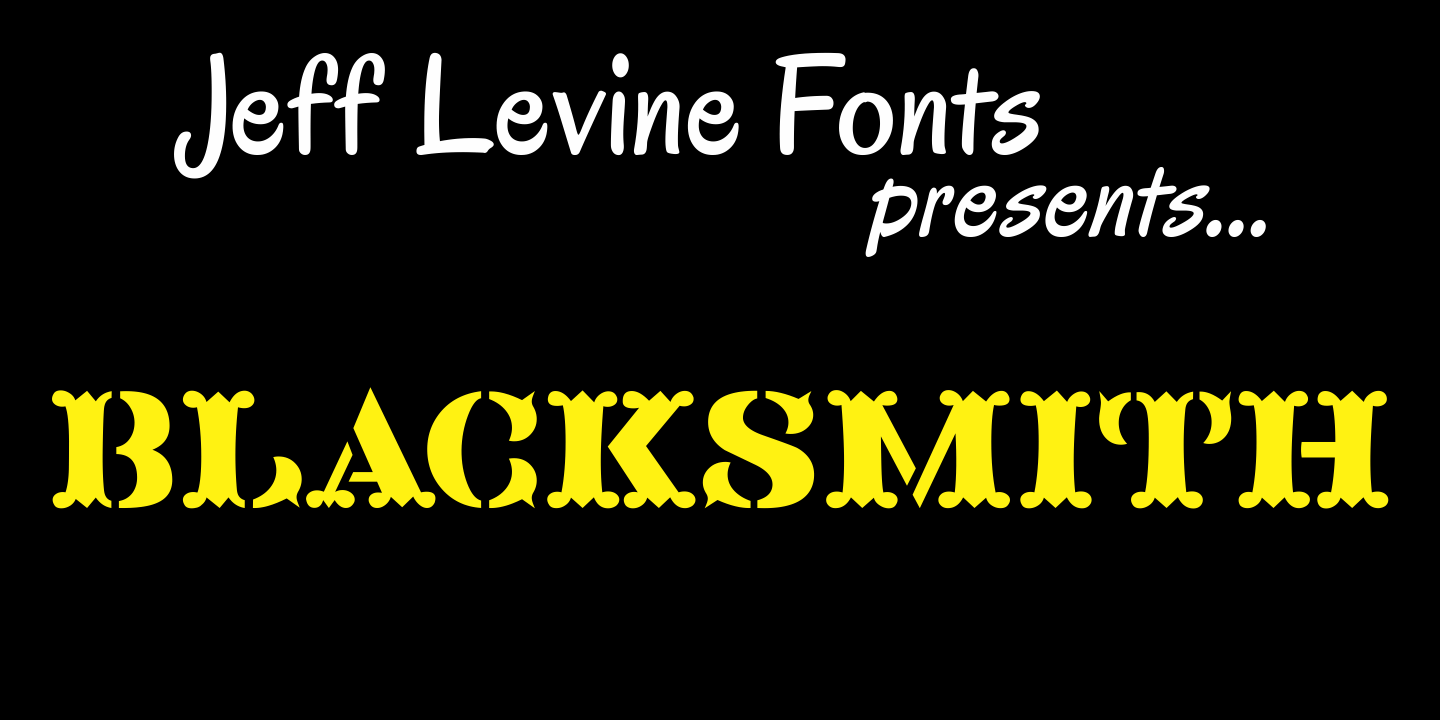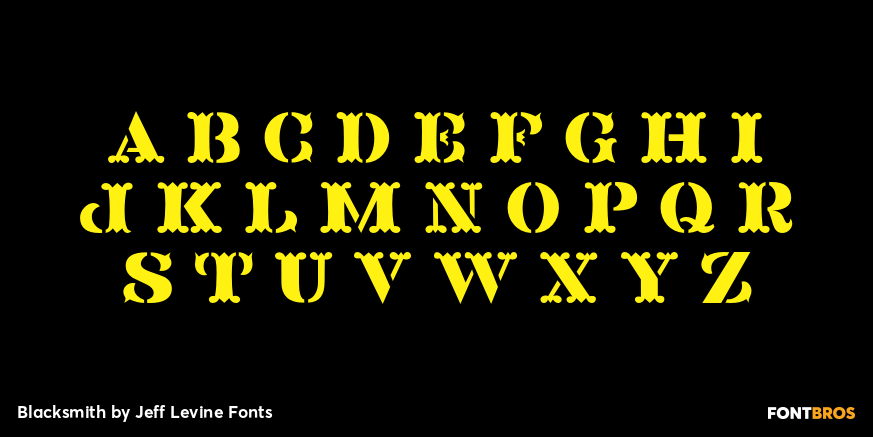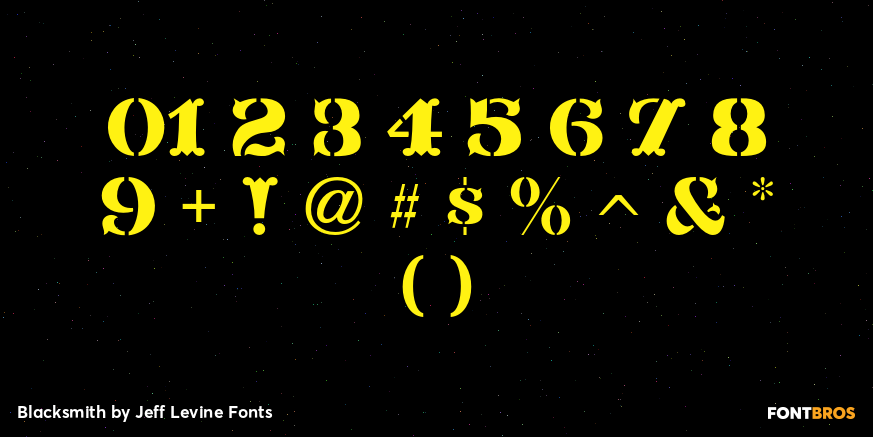
Blacksmith
What started as an image of a single vintage brass stencil of the letter 'P' spotted in an online auction has turned into Blacksmith JNL. From that single letter Jeff Levine has created a complete Western stencil font, retaining the hand-made look of the original stencil piece.